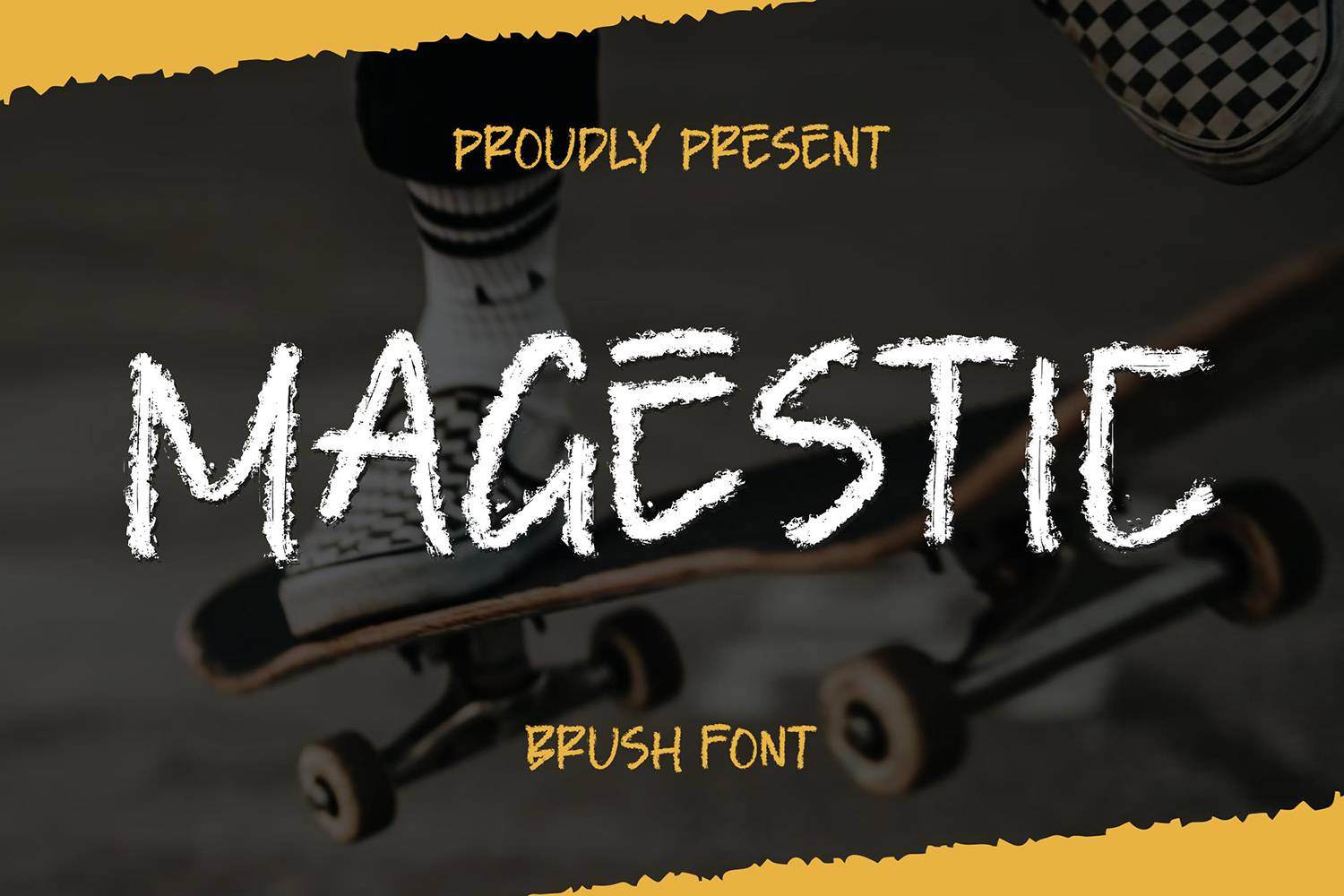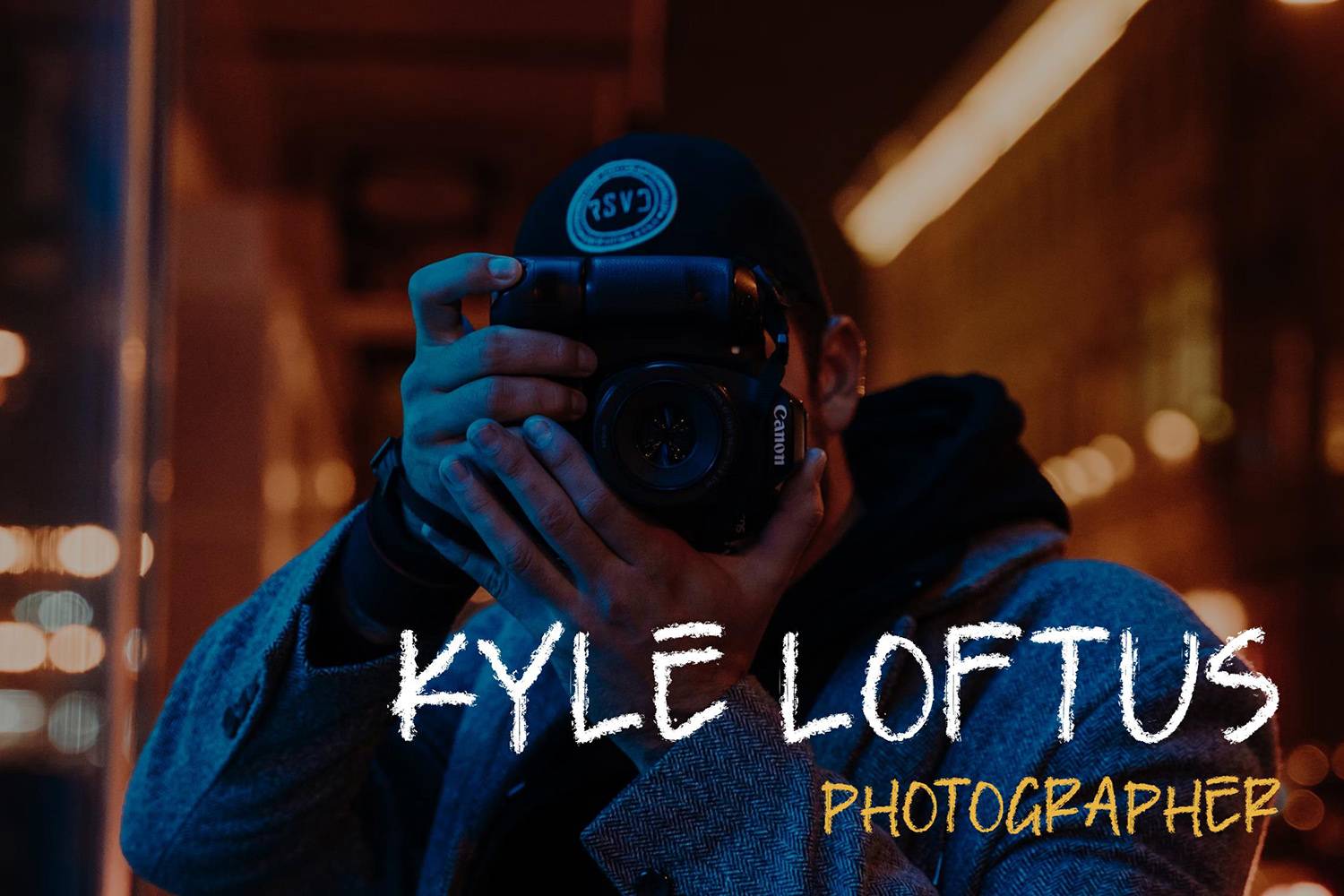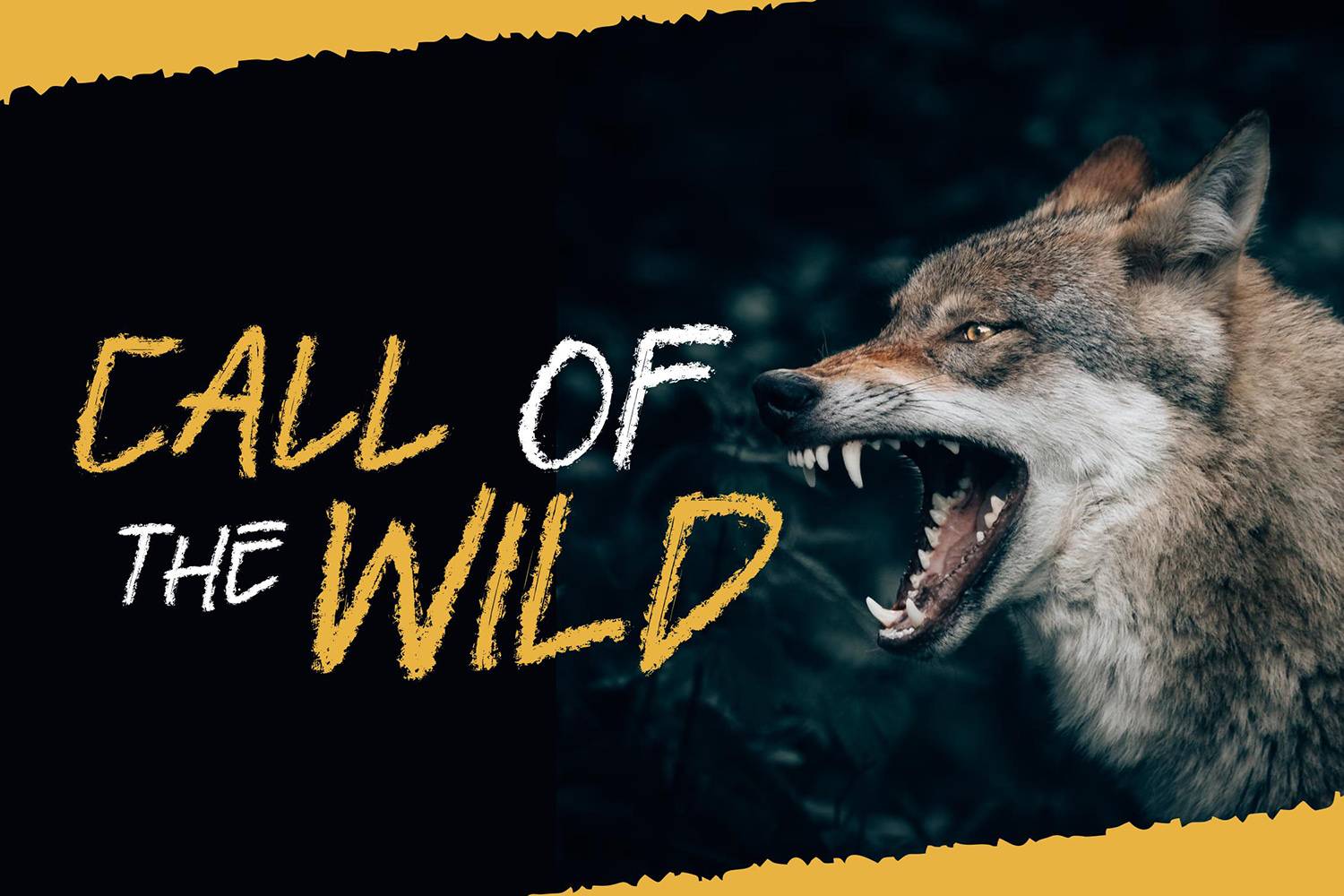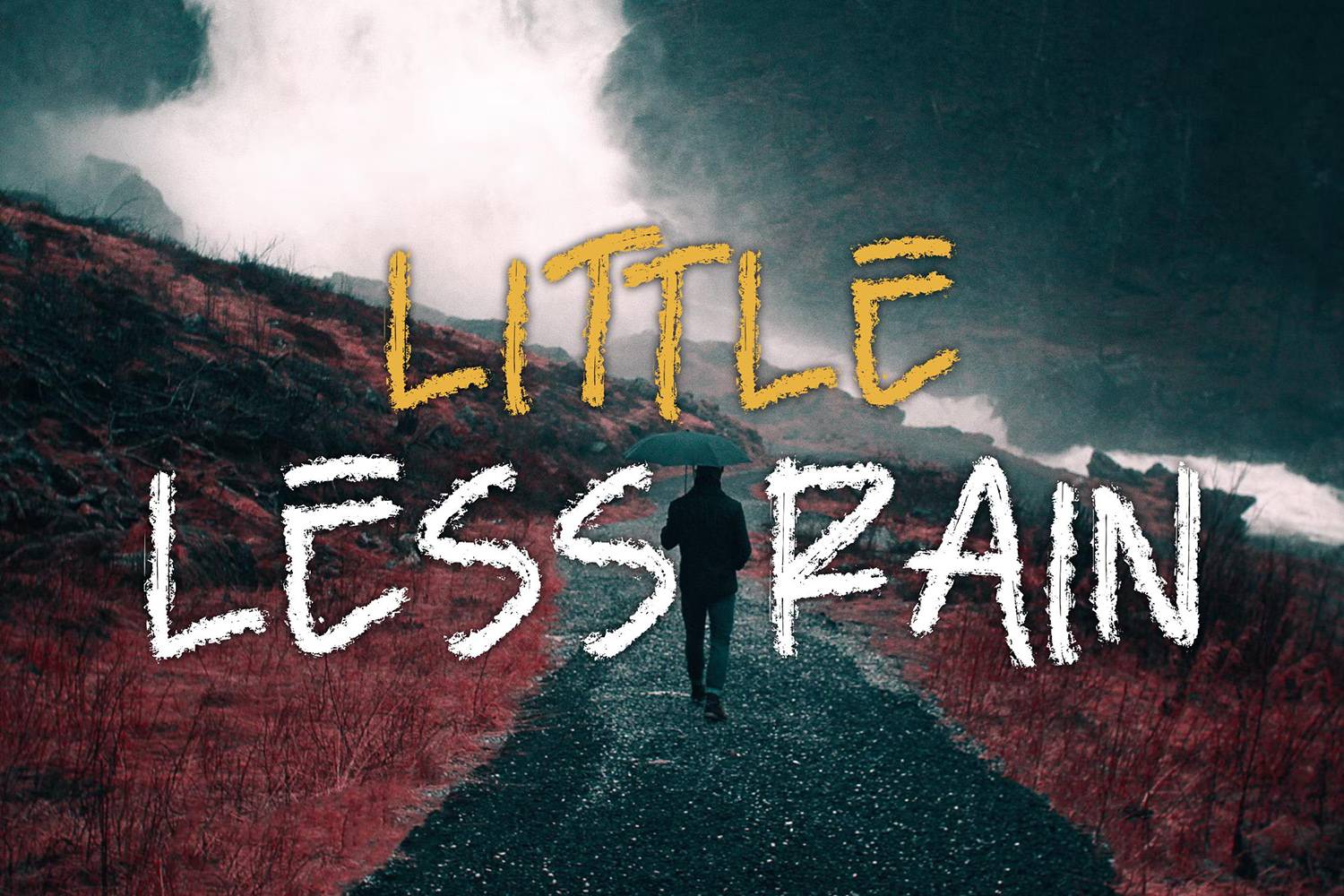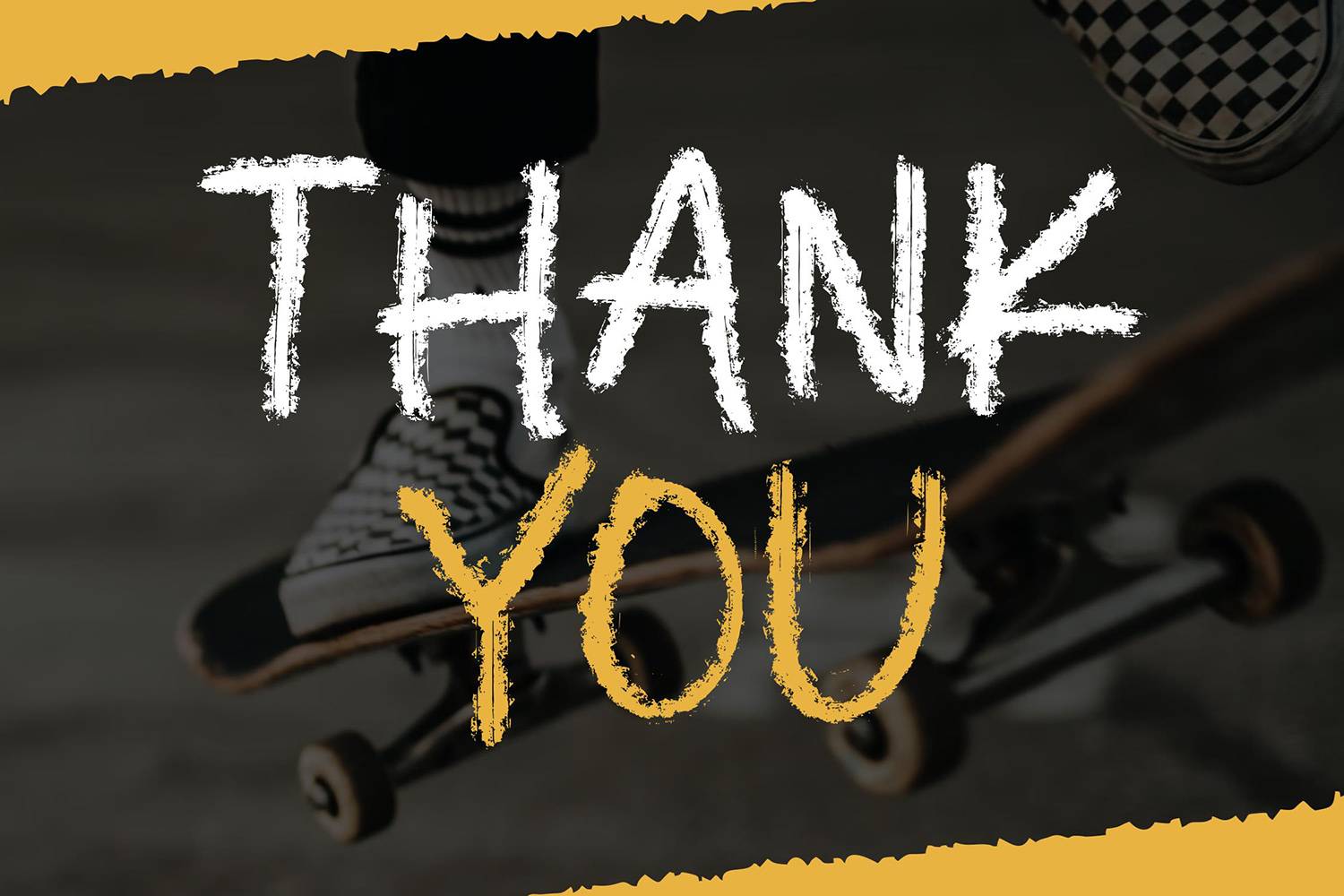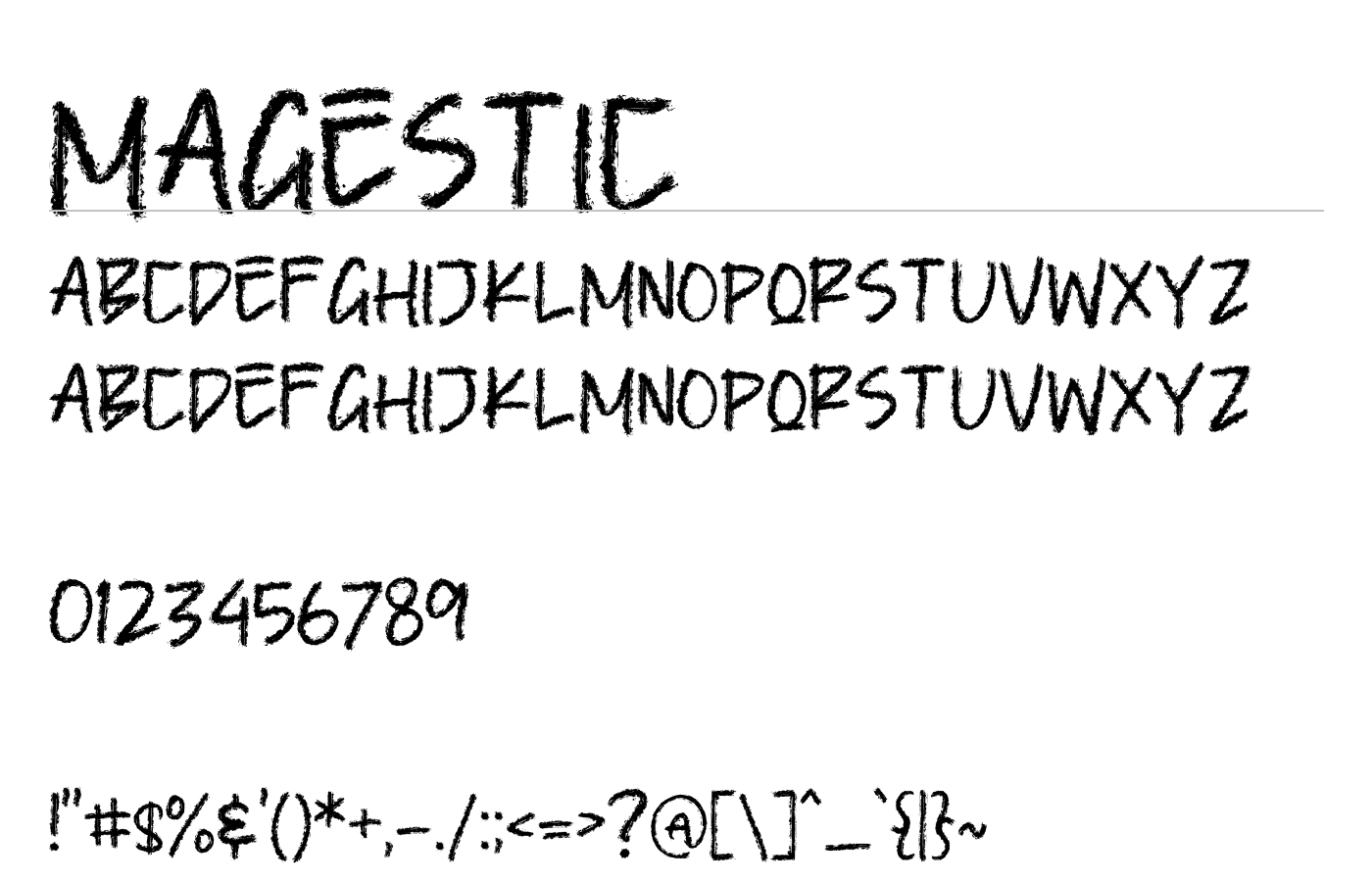
Magestic Font is a playful and textured handwritten sans serif that mimics the rough, chalk-like strokes of a marker or crayon. Its irregular lines and casual style give it a lively, informal feel, making it perfect for creative projects, children's products, or any design that seeks a friendly and approachable vibe. This font works well in headlines, posters, and branding where a fun, personal touch is desired.
Magestic Font
About Magestic Font